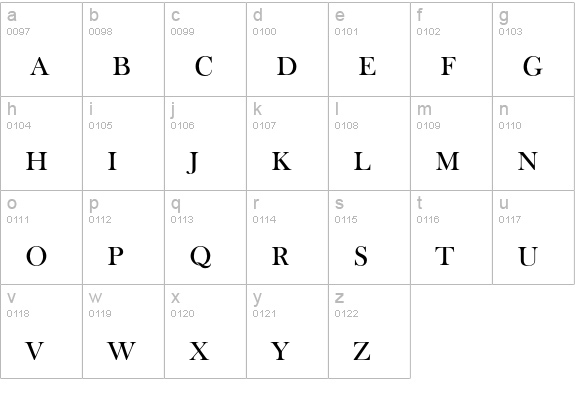
Baskerville Old Face SC D Font Details
Baskerville Old Face SC D font is a classic and elegant typeface that exudes sophistication and timelessness. Its refined serifs and graceful letterforms make it a perfect choice for adding a touch of sophistication to any design project. This font is ideal for use in branding, editorial design, and any project where a touch of traditional elegance is desired. What sets Baskerville Old Face SC D font apart is its availability for free download at FontsMarket.com. This means you can easily access and use this beautiful typeface without any cost, making it a valuable asset for designers and creatives looking to enhance their work with a touch of class. Don't miss out on the opportunity to add this exquisite font to your collection and elevate your designs with its timeless charm.